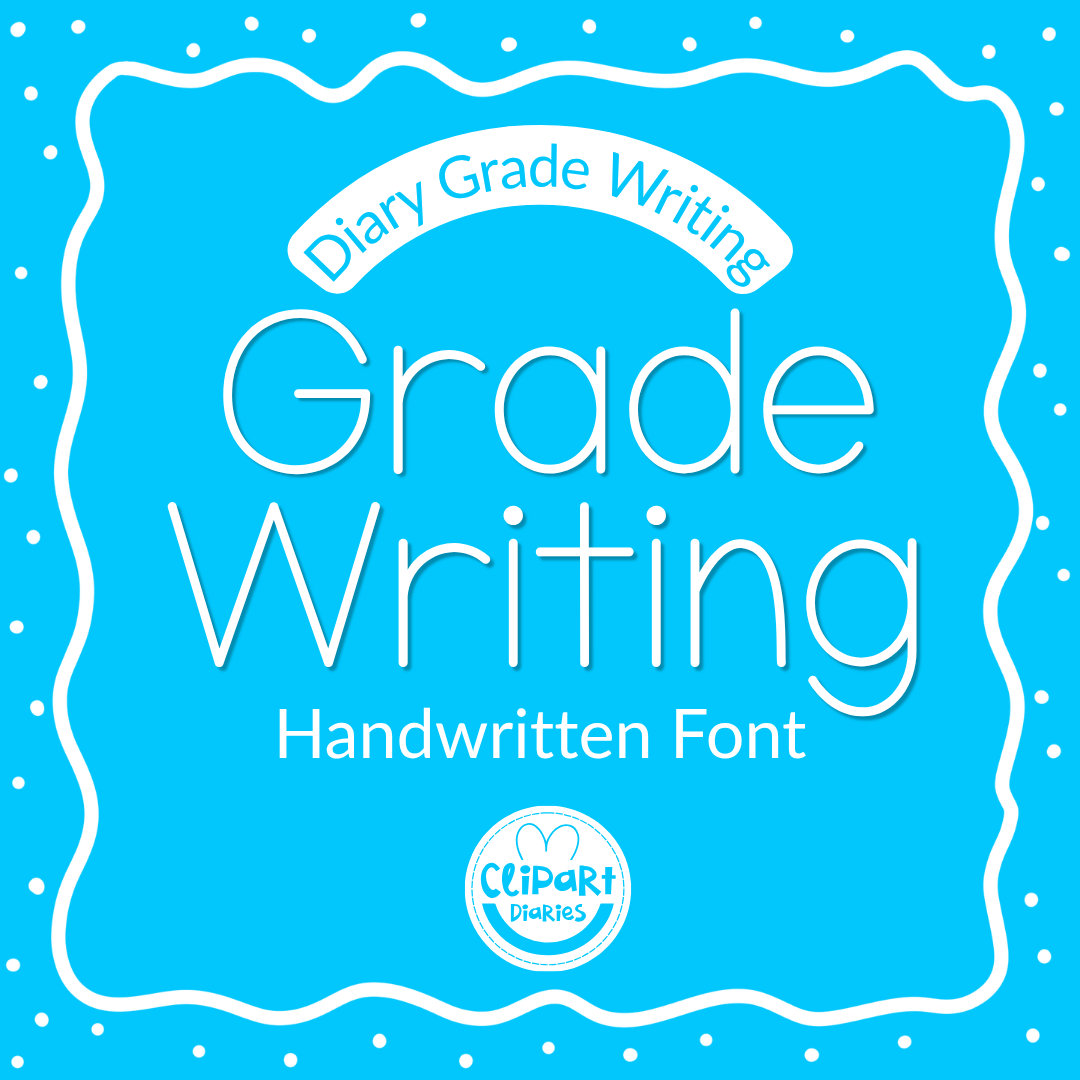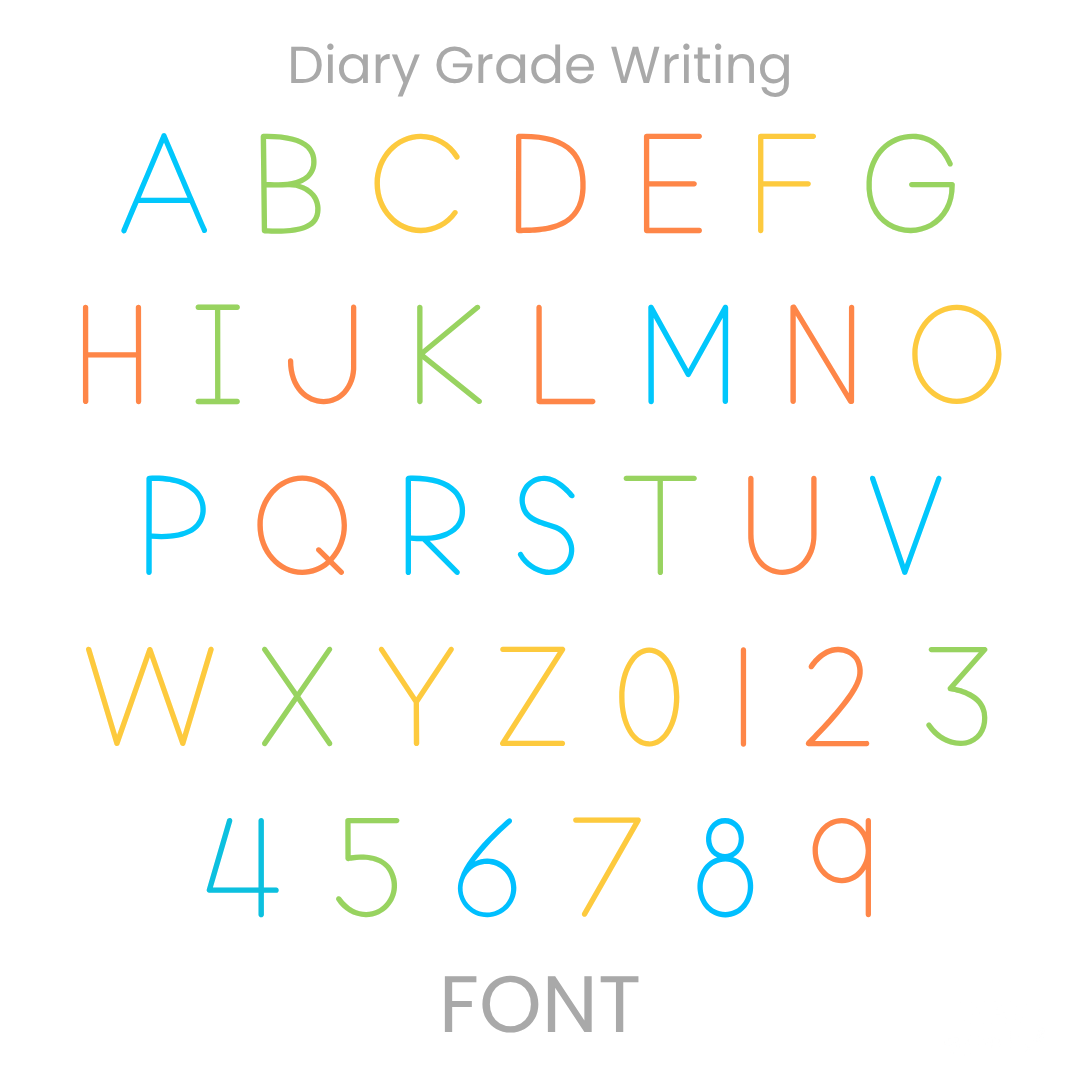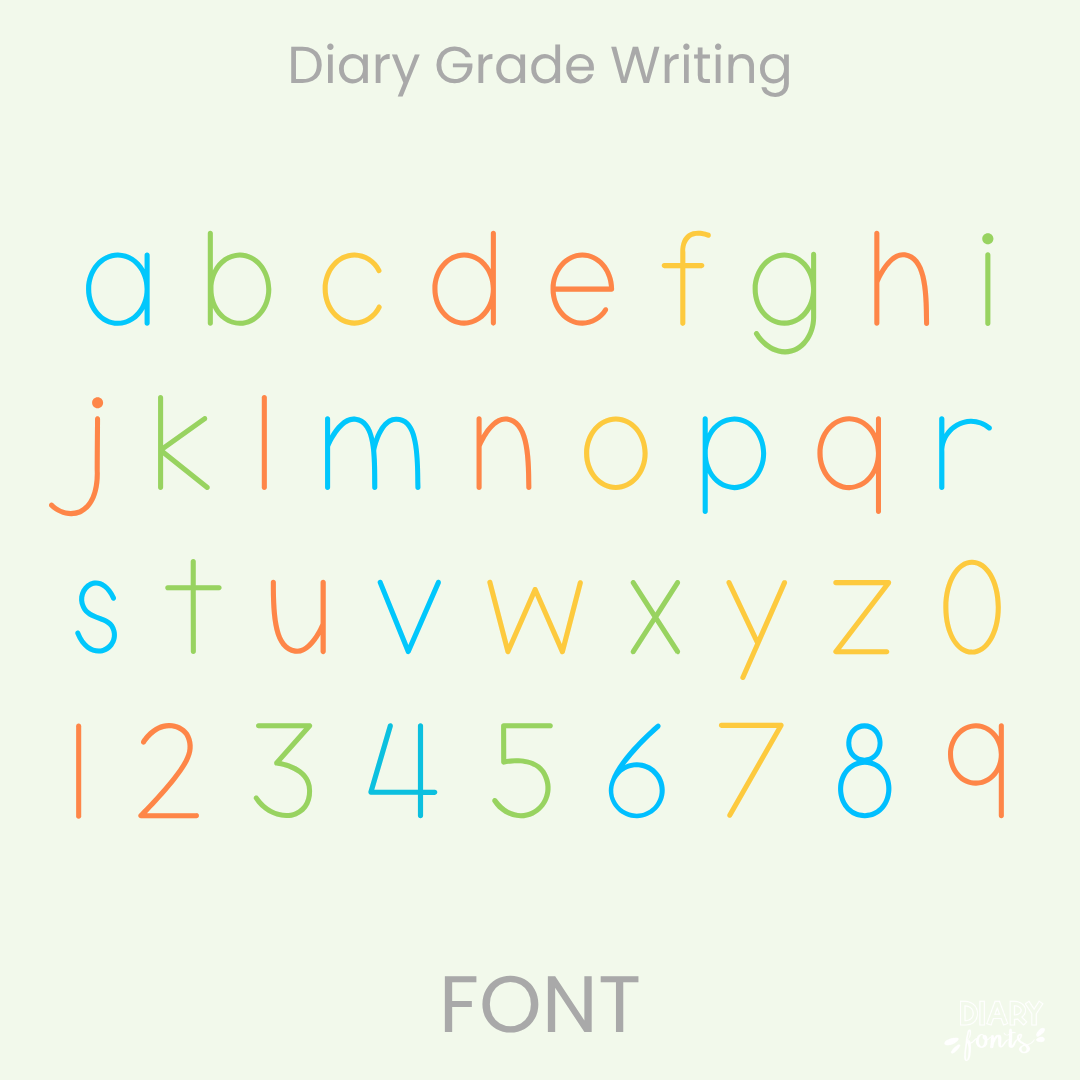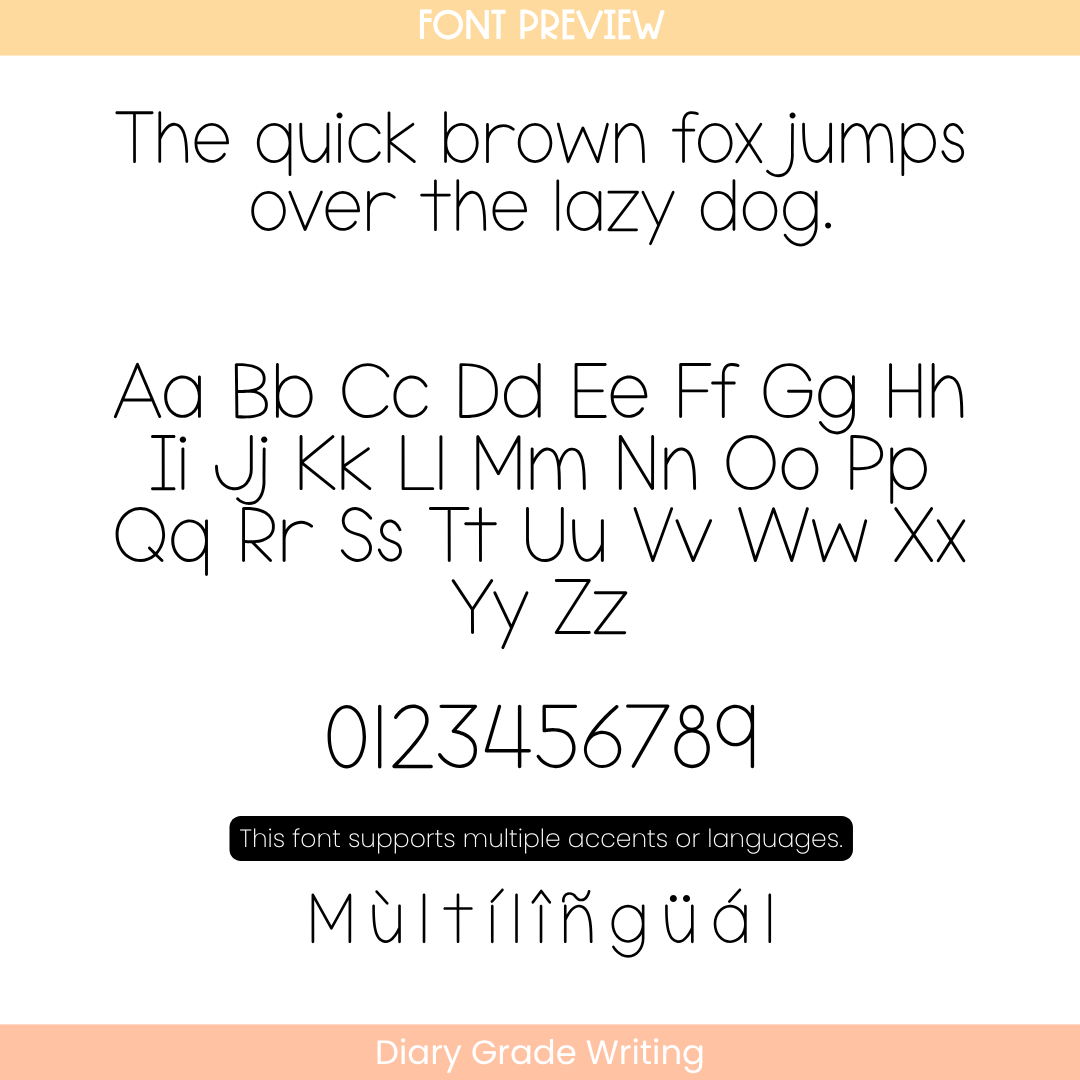
A neat, handwritten font perfect for classroom resources, educational worksheets, teachers, and students. Designed to mimic clean and legible handwriting, this font features smooth strokes and a simple appearance—ideal for early learners, handwriting practice, and school projects.